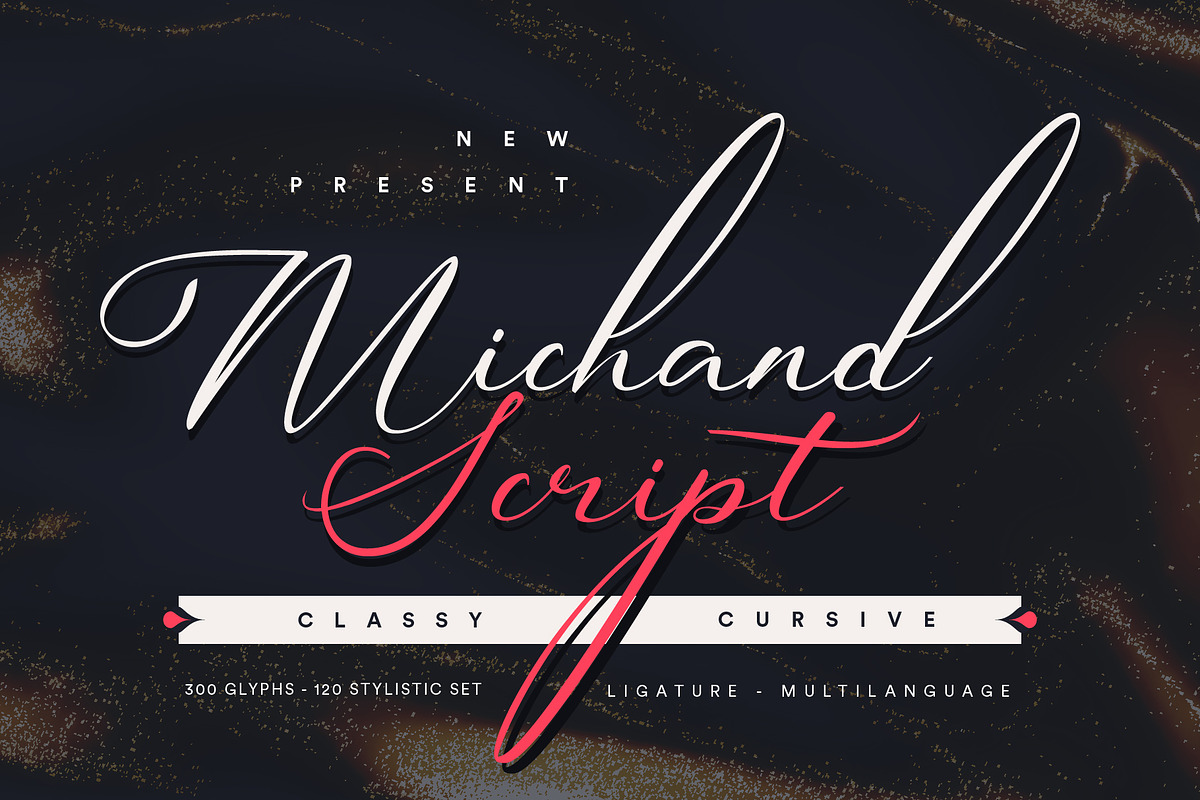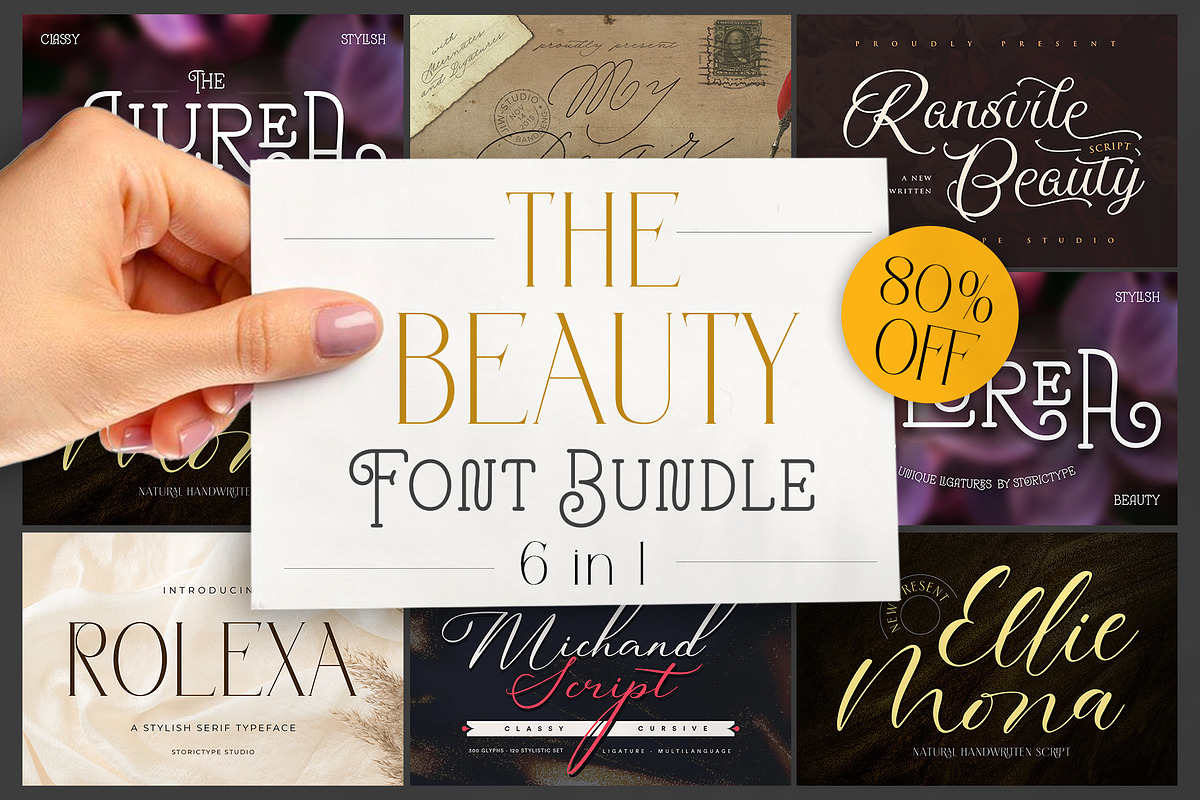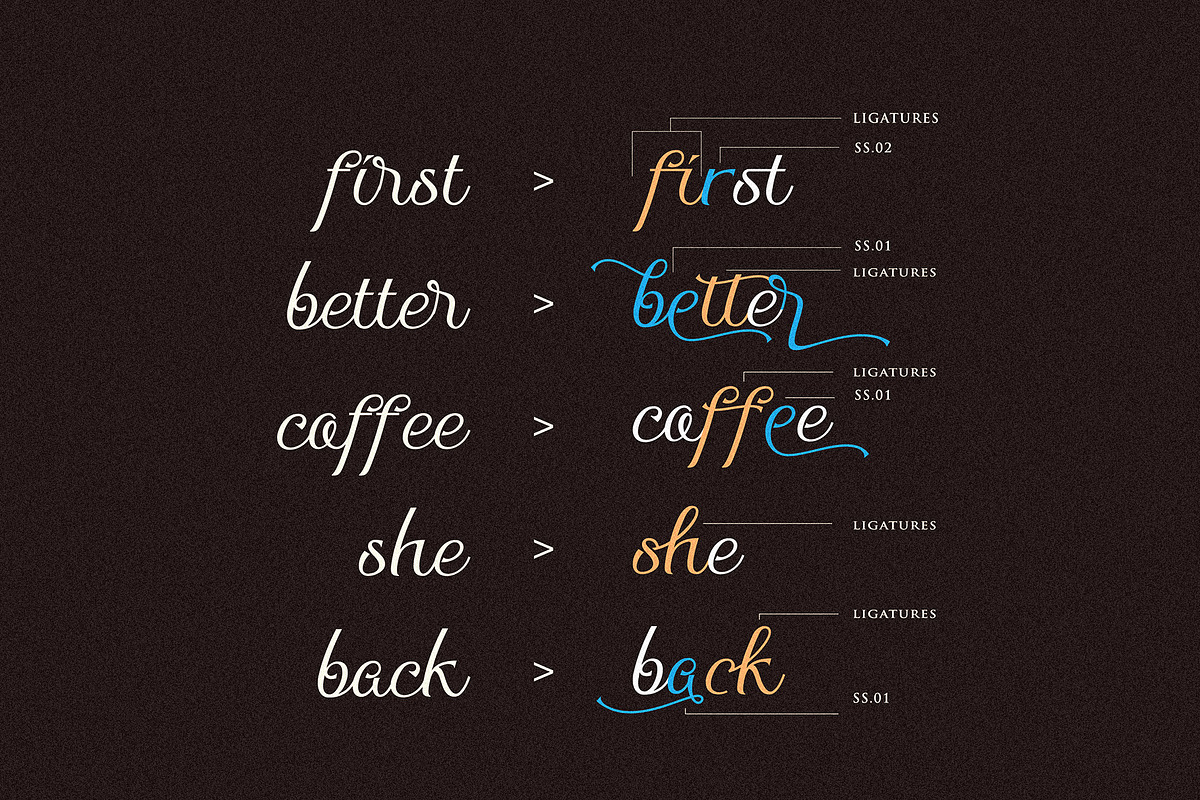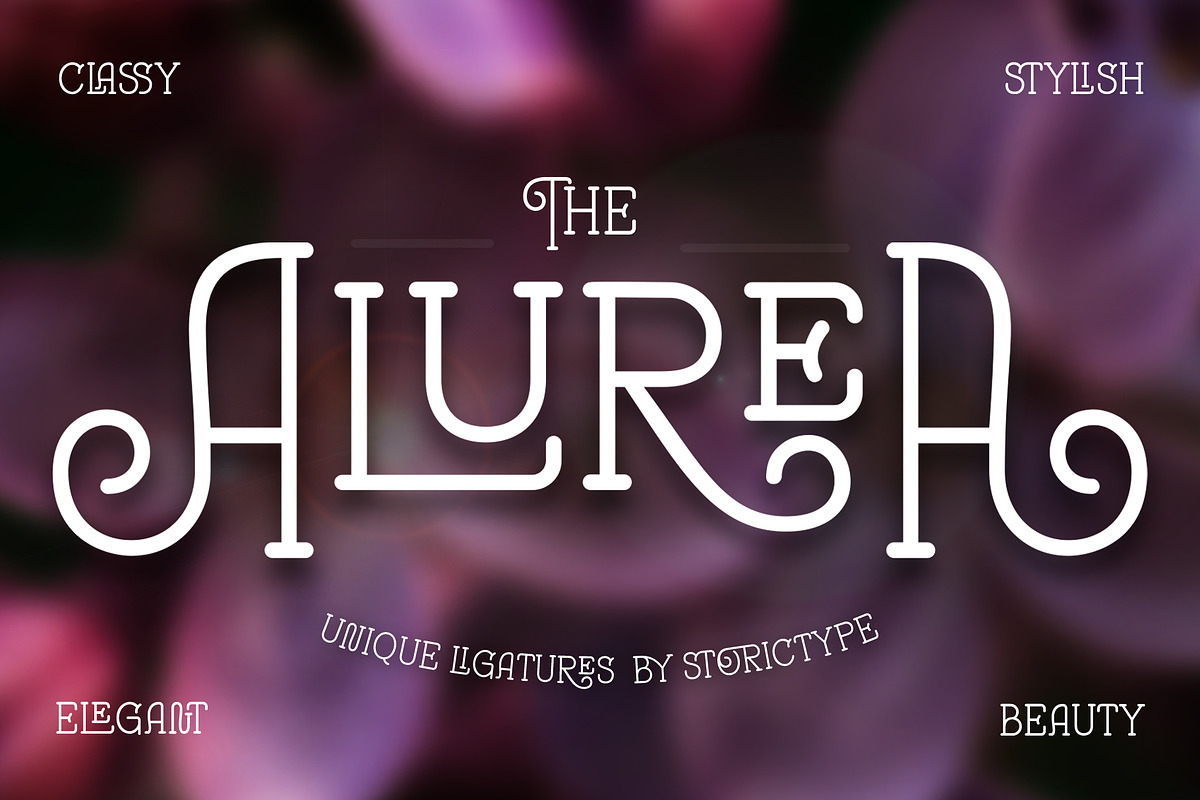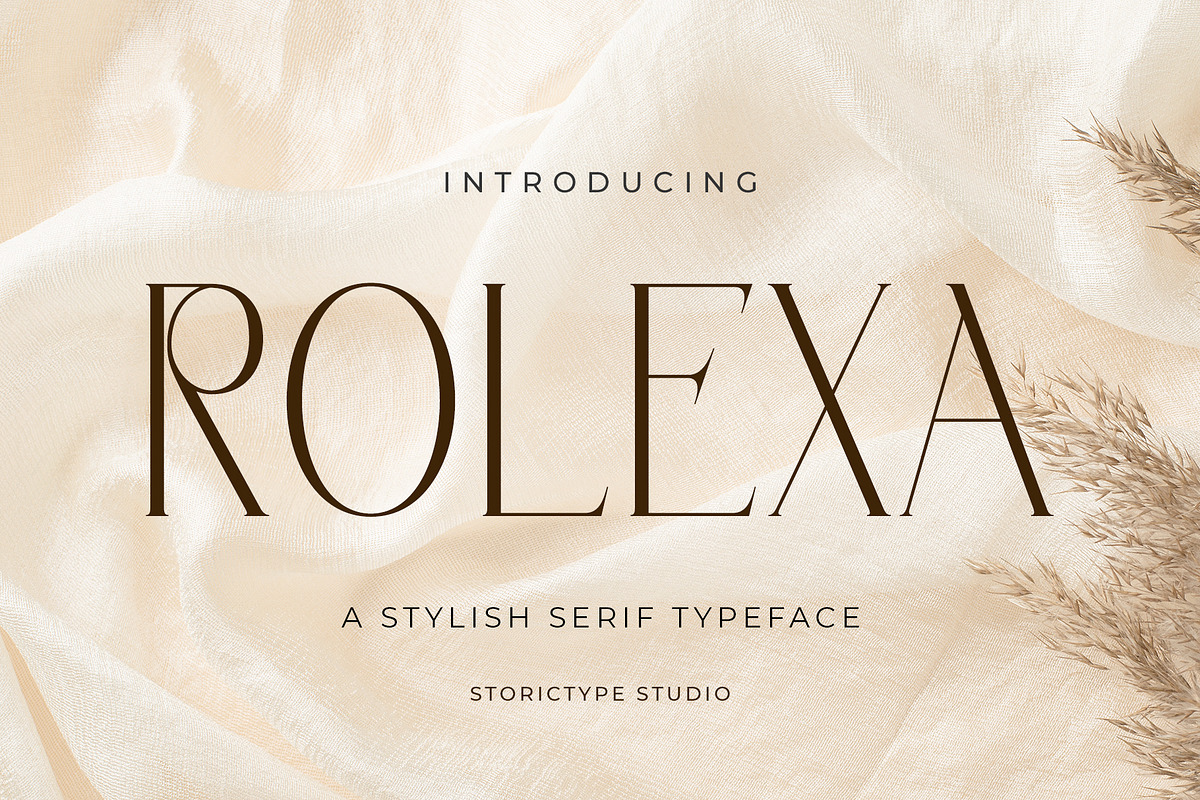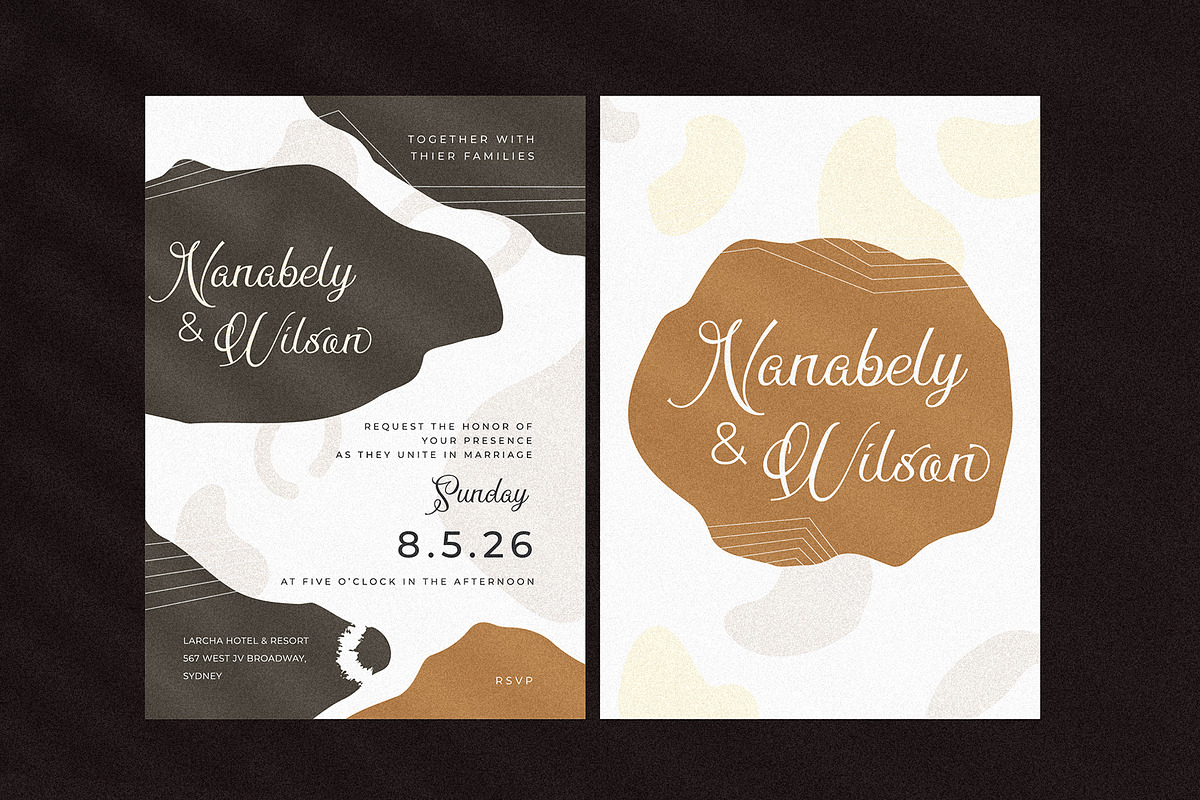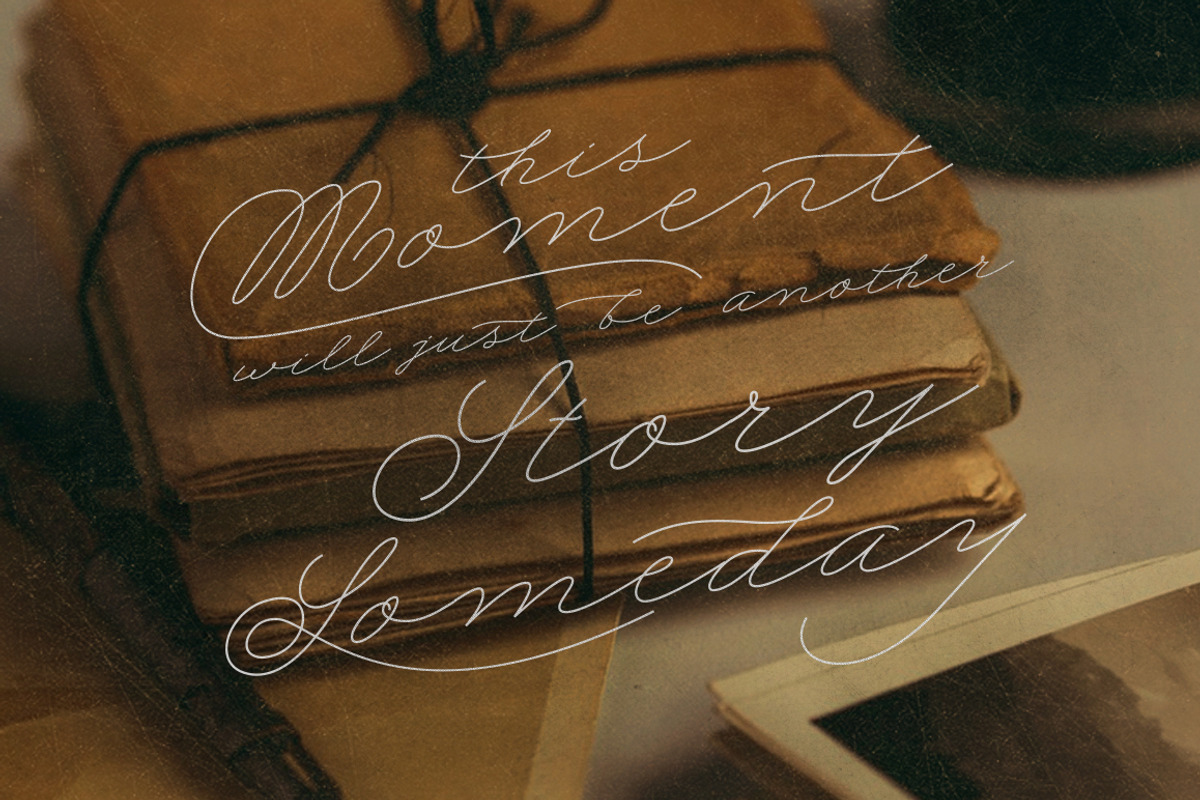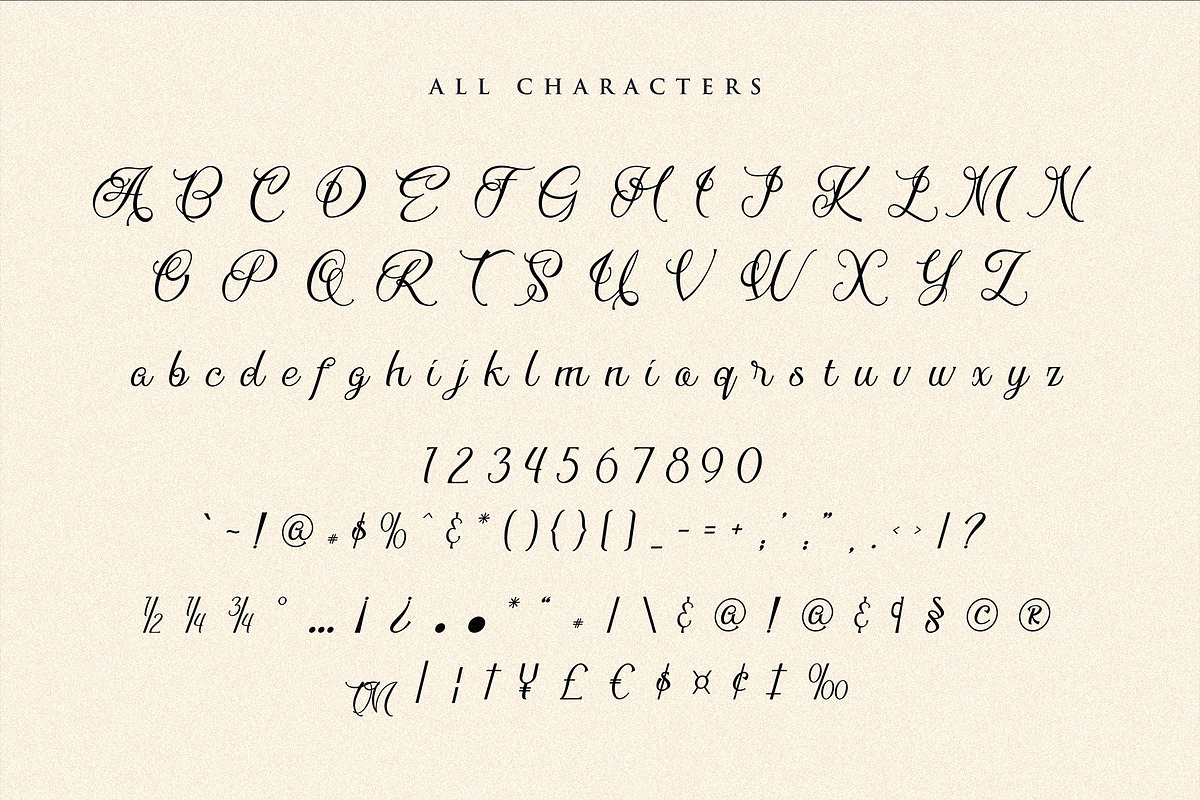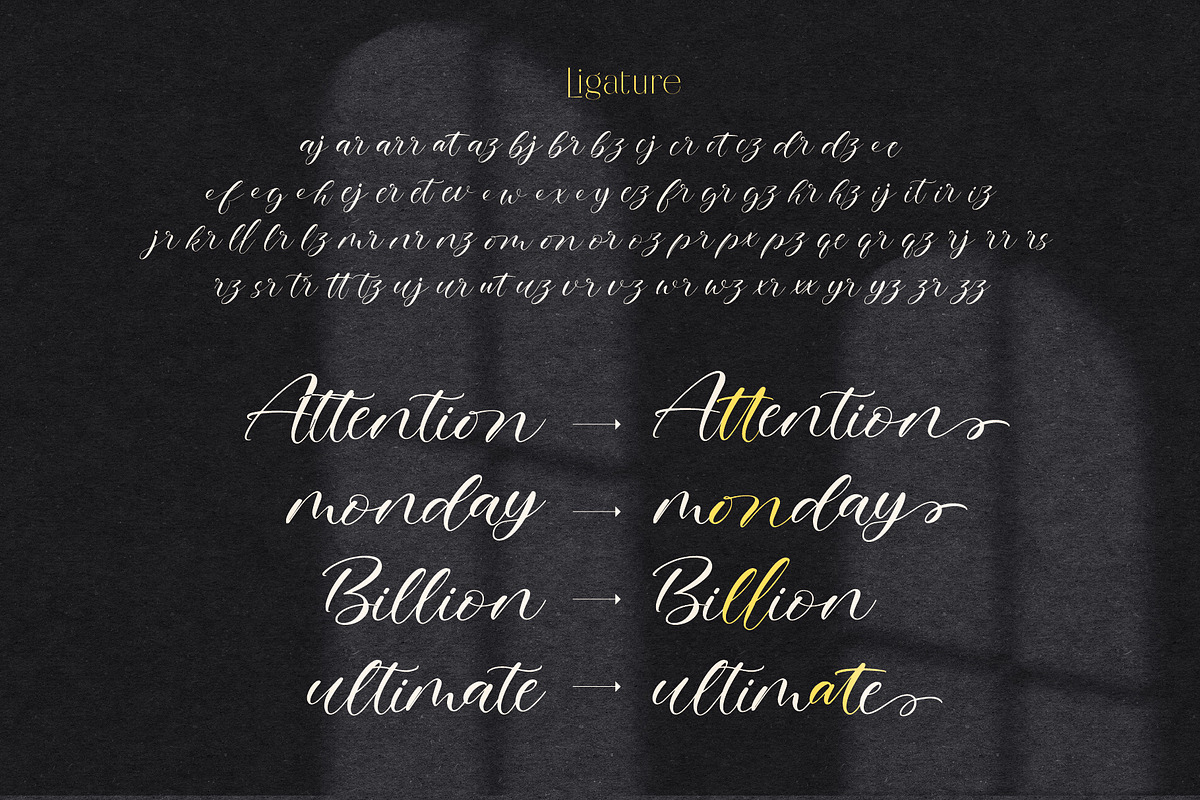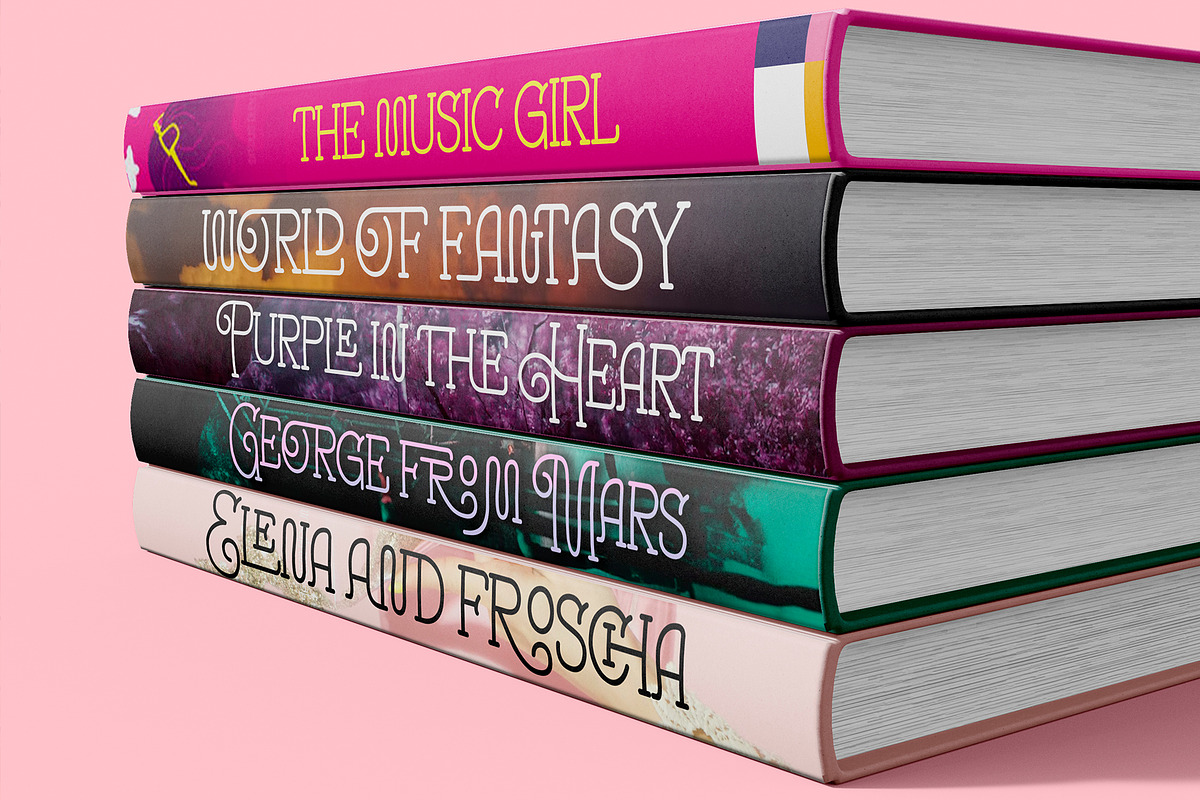
The Beauty Font Bundle | 6 in 1
This font was conceptualized and materialized as a response to the recurring requests for uniquely styled yet meaningful design product. Perfectly suited for a wide array of design requirements, it effortlessly elevates wedding invitations, logos, product branding, fashion designs, or skincare labels to whole new levels of sophistication. This font is unique, contemporary, and classy. Rich in meaning, it’s designed to make your branding or design projects set themselves apart. Experience the magic as it brings your ideas to life with ease. Capitalize on the power of this font to make your designs not just be seen, but truly stand out.
AWESOME FONTS IN THIS BUNDLE:
- Uppercase and lowercase letters
- Multilingual Characters
- Numerals & punctuations